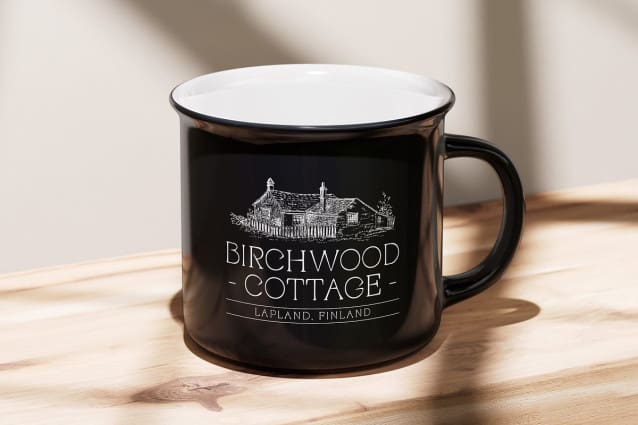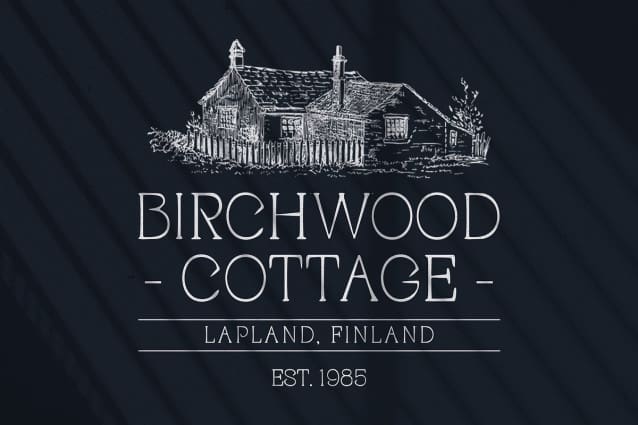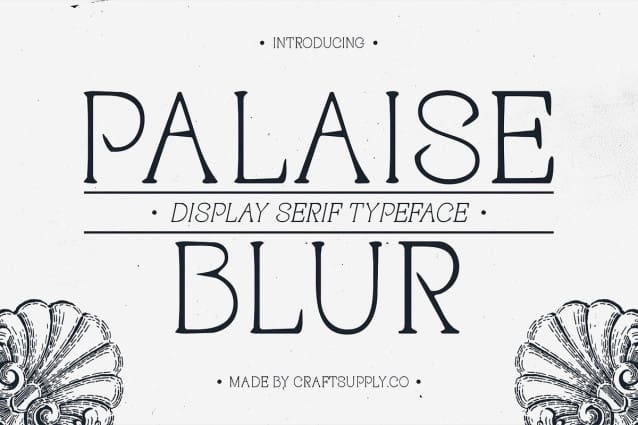
Palaise Blur Font
Palaise Blur Font is a modern serif font that embodies sophistication and refinement. With its sleek, thin letterforms, this typeface exudes a sense of grace and luxury, making it a perfect choice for high-end branding, formal invitations, or editorial layouts. The careful design of each character reflects an attention to detail, offering an aesthetic that is both timeless and versatile.
Blur Effect for a Soft, Mysterious Touch The defining feature of Palaise Blur is its subtle blur effect, which adds a modern, artistic twist to the classic serif design. This effect introduces a layer of mystery and intrigue, making the letters appear as if they are gently fading or in motion. The blur effect softens the font’s overall appearance, giving it a dreamlike quality that sets it apart from more traditional serif fonts.
Perfect for Luxury Branding and Editorials Palaise Blur’s combination of refined serifs and the artistic blur effect makes it especially suited for luxury branding and editorial design. The font’s sleek, delicate forms and subtle blurring give it a contemporary yet classic feel, allowing it to seamlessly integrate into sophisticated design layouts.